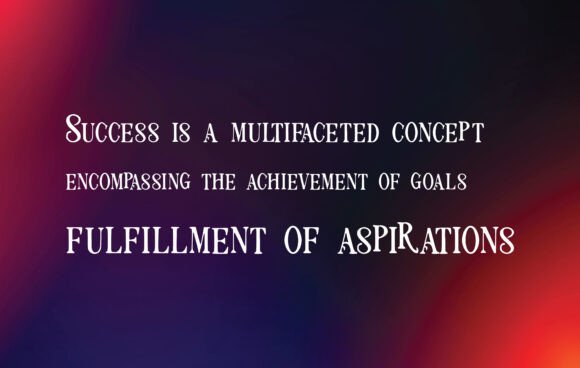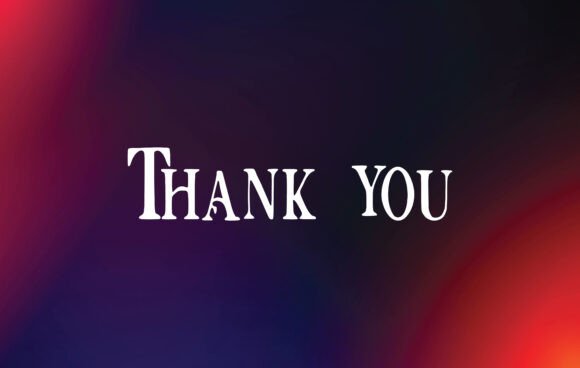
Gavin Font: Elevate Your Creative Projects with Elegance and Sophistication
Are you a designer, craftsperson, or creative enthusiast looking for a font that can take your projects to the next level? Look no further than the Gavin Font. This stunning font is designed to help you create visually appealing and engaging content that captures the attention of your audience. With its elegant and sophisticated design, Gavin Font is the perfect choice for creating eye-catching logos, branding, and quotes that leave a lasting impression.
The Beauty of Gavin Font
Gavin Font is a lovely and beautiful font that boasts a unique and refined design. Its sleek lines, curves, and shapes make it a versatile font that can be used for a wide range of creative projects. Whether you’re designing a logo, brochure, or social media graphic, Gavin Font is sure to add a touch of elegance and sophistication to your work. Its beauty lies in its simplicity, making it easy to read and understand, while also being visually appealing.
Unleash Your Creativity with Gavin Font
Gavin Font has the potential to take your creative ideas to the highest level. Its versatility and flexibility make it an ideal choice for designers and craftspersons who want to push the boundaries of their creativity. With Gavin Font, you can create stunning visual content that showcases your brand’s personality and style. Whether you’re working on a branding project, creating a quote graphic, or designing a logo, Gavin Font provides the perfect foundation for your creative expression.
Why Choose Gavin Font?
So, why choose Gavin Font over other fonts? Here are just a few reasons why Gavin Font stands out:
- Elegance and Sophistication: Gavin Font exudes elegance and sophistication, making it perfect for high-end brands and creative projects.
- Versatility: Gavin Font can be used for a wide range of creative projects, from logos and branding to quotes and social media graphics.
- Easy to Read: Despite its elegant design, Gavin Font is easy to read and understand, making it perfect for body text and captions.
- Unique Design: Gavin Font boasts a unique design that sets it apart from other fonts, ensuring your creative projects stand out from the crowd.
Gavin Font is a perfect choice for designers and craftspersons who want to create visually appealing and engaging content. Its elegant design and versatility make it an ideal choice for:
- Logo Design: Create stunning logos that showcase your brand’s personality and style.
- Branding: Develop a consistent brand identity with Gavin Font’s elegant and sophisticated design.
- Quote Graphics: Create inspiring and motivational quote graphics that capture the attention of your audience.
- Social Media Graphics: Design engaging social media graphics that stand out from the crowd.
In conclusion, Gavin Font is a stunning font that can elevate your creative projects to new heights. Its elegant and sophisticated design makes it perfect for creating eye-catching logos, branding, and quotes. With its versatility, flexibility, and unique design, Gavin Font is an ideal choice for designers and craftspersons who want to push the boundaries of their creativity. So, why wait? Give Gavin Font a try today and experience the power of elegant typography in your creative projects.